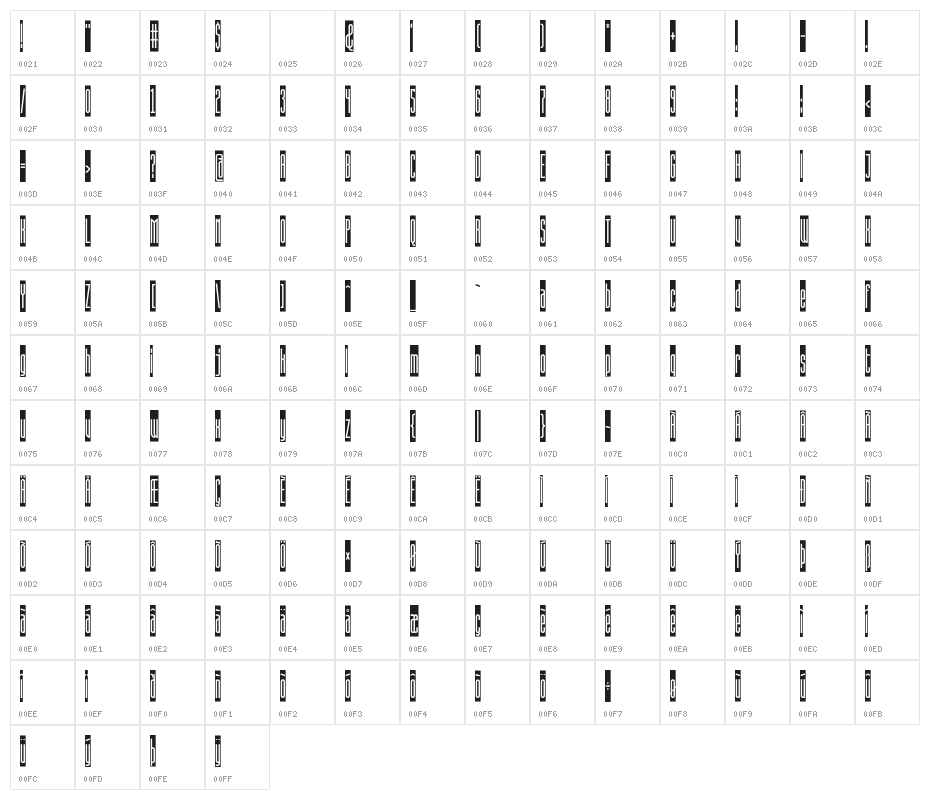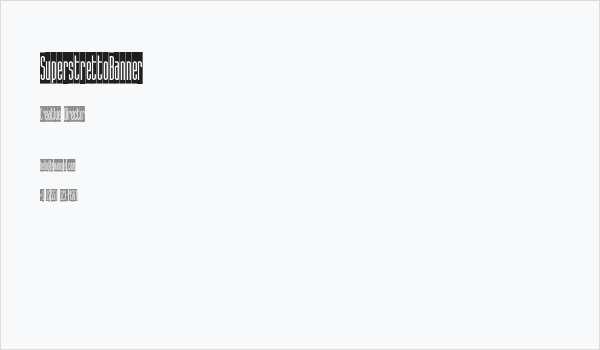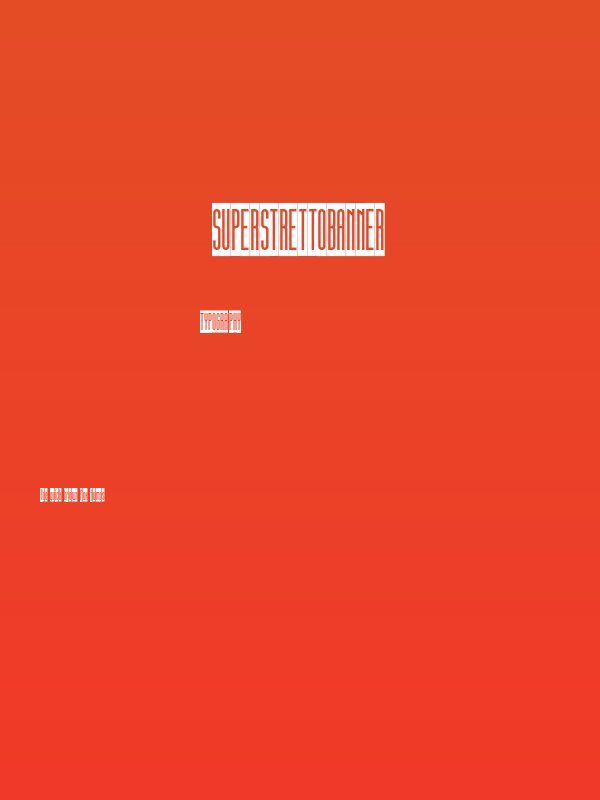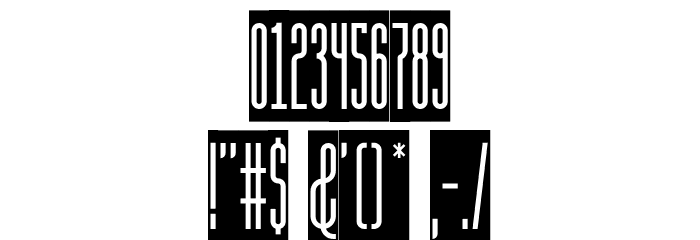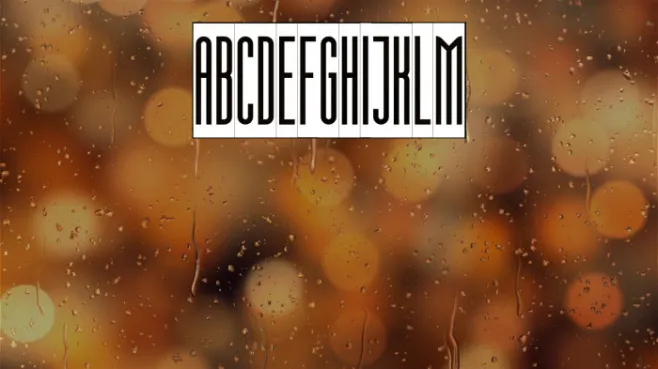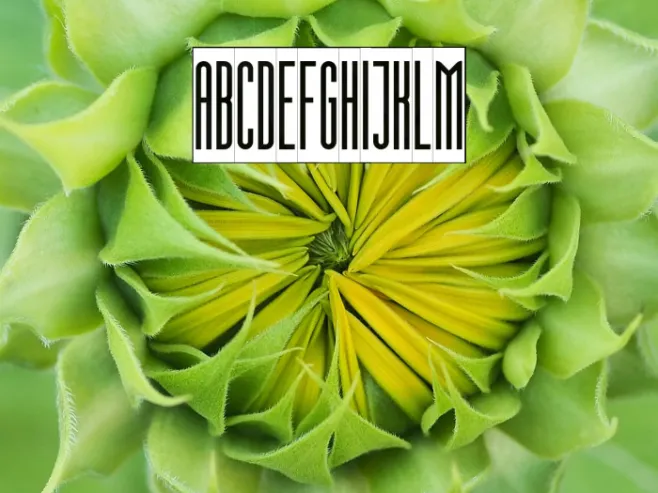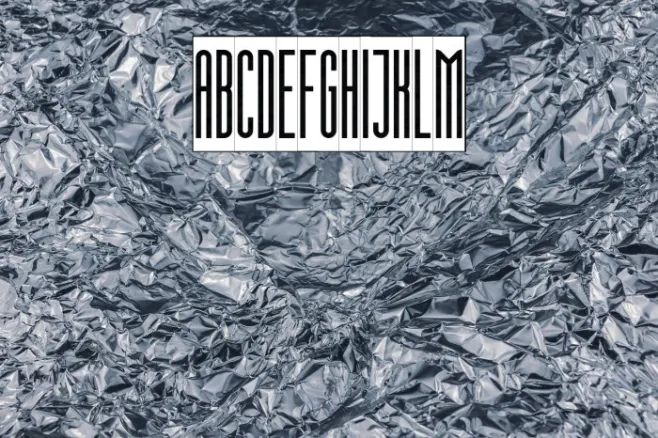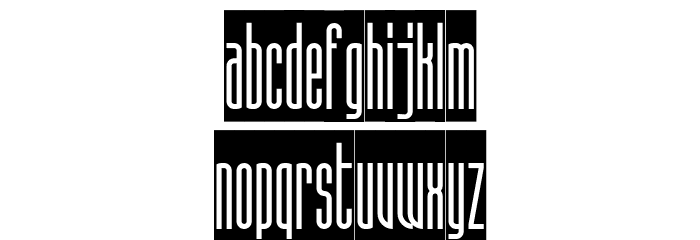
SuperstrettoBanner Font
SuperstrettoBanner Description
This font features a highly condensed and elongated design, characterized by tall, narrow letters with minimal spacing between them. The uppercase and lowercase letters maintain a consistent height, creating a uniform appearance. The strokes are thin, contributing to a sleek and modern aesthetic. The numerals and special characters follow the same condensed style, ensuring visual harmony across all glyphs. The overall look is bold and impactful, making it suitable for attention-grabbing headlines and banners.
| Use Case | Headlines, Banners |
| Proposed Projects | Ideal for modern posters, banners, and headlines where space is limited but impact is needed. |